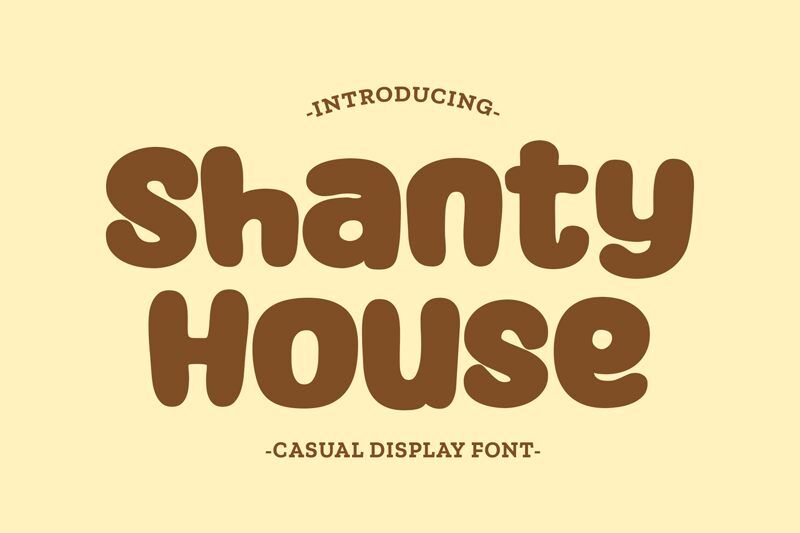
Shanty House Regular
Shanty House leaps off the page with its playful cartoon style, meticulously crafted by designer Niskala Huruf. This display font boasts an extra-bold weight paired with a semi-expanded width that commands attention and exudes confidence. Its curvaceous lines and whimsical bends evoke a sense of fun and creativity, making it an ideal choice for projects that aim to delight and engage.
The font's oversized, friendly characters are perfect for children's books, animated movie titles, or any design that requires a touch of lightheartedness. Shanty House is not just about looks; its substantial letterforms ensure excellent readability at larger sizes, which is essential for impactful headlines and eye-catching logos. Embrace the charm of Shanty House to infuse your creative endeavors with a sense of joy and bold expressiveness.